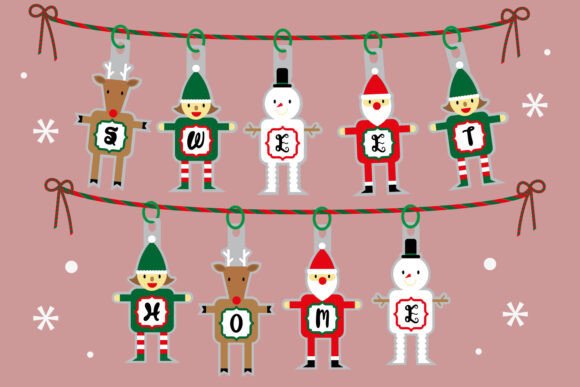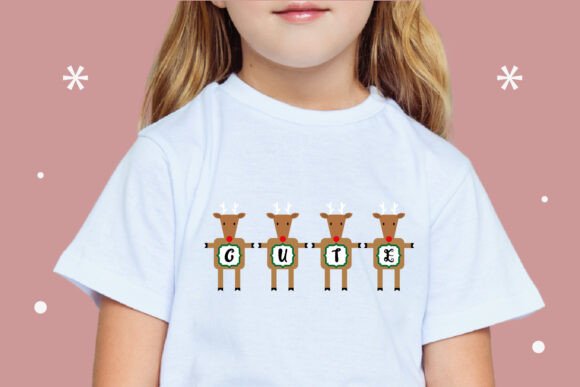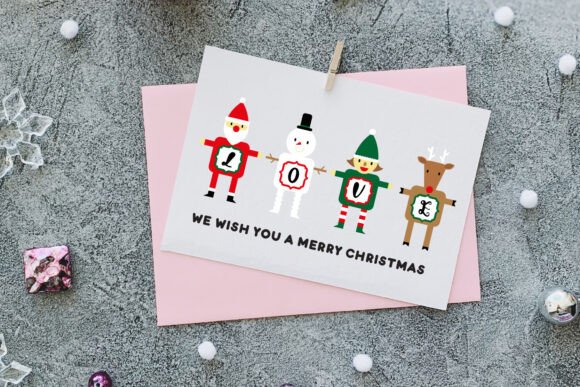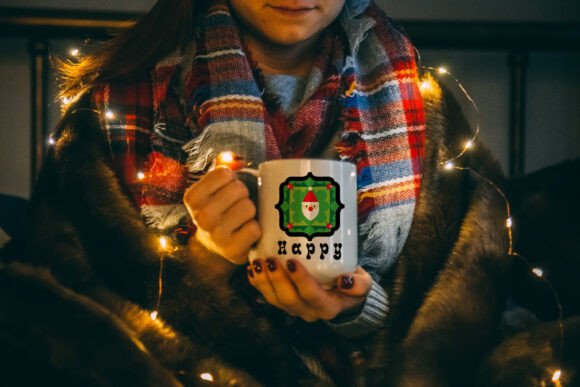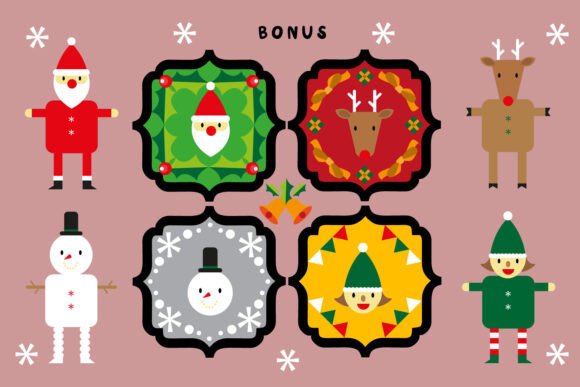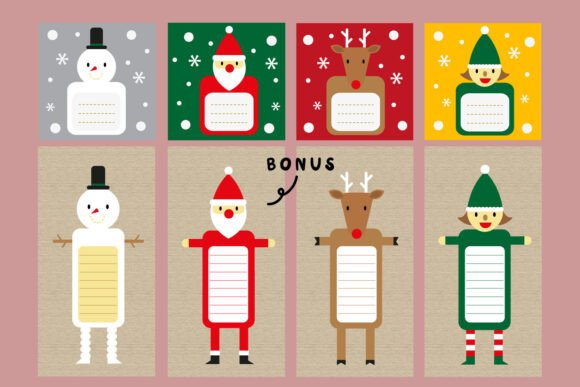
Christmas Doll Font – Free Download
Introduction to Christmas Doll Font
The Christmas Doll Ornament SVG Color Font features adorable characters such as Santa, elves, reindeer, and snowmen, bringing a playful and cheerful vibe to your designs.
It’s perfect for adding a festive atmosphere to your Christmas-themed decorations As a bonus, you’ll receive 167 PNG and 167 SVG files to enhance your creative projects.
Key Features of Christmas Doll Font